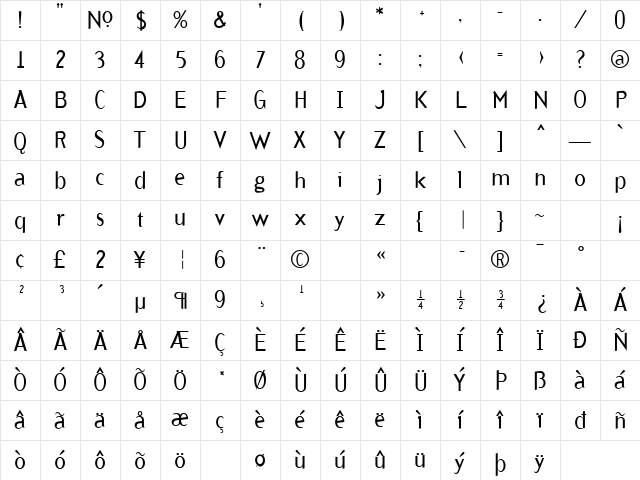
Complete ArbitraryRegular glyph index. Displaying only characters natively supported by ArbitraryRegular font.
ArbitraryRegular is a composed and adaptable typeface that performs quietly and consistently across a wide range of design contexts.